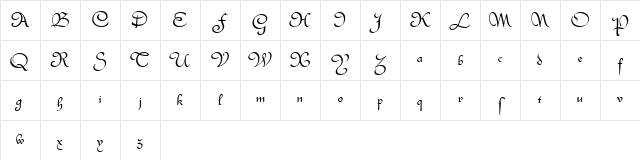
Complete LettreCivilitdeGrajon Regular glyph index. Displaying only characters natively supported by LettreCivilitdeGrajon Regular font.
LettreCivilitdeGrajon is a composed and adaptable typeface that performs quietly and consistently across a wide range of design contexts.